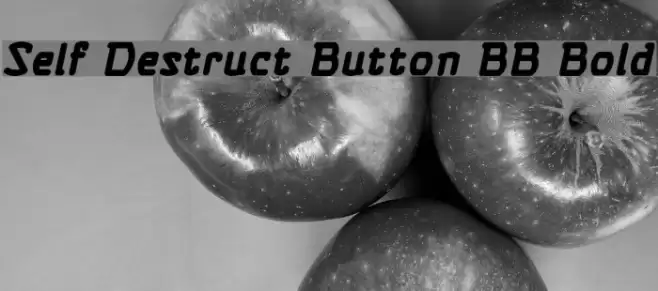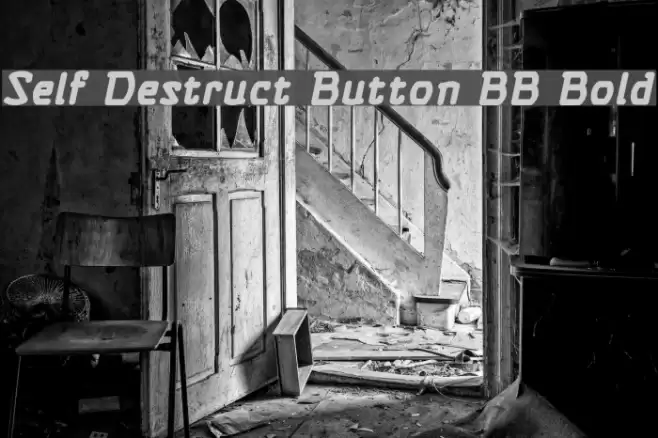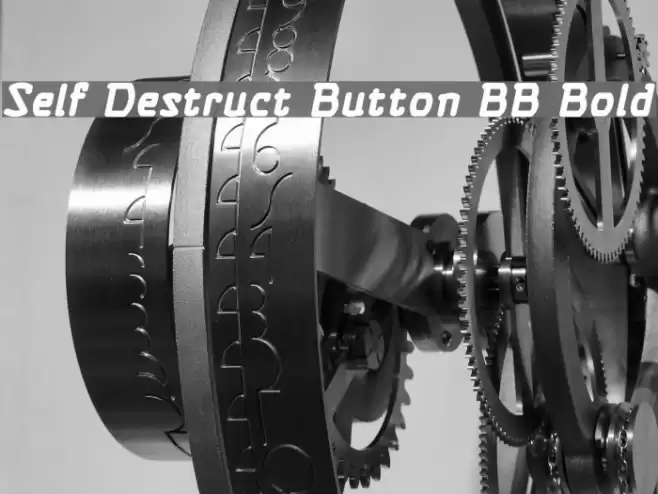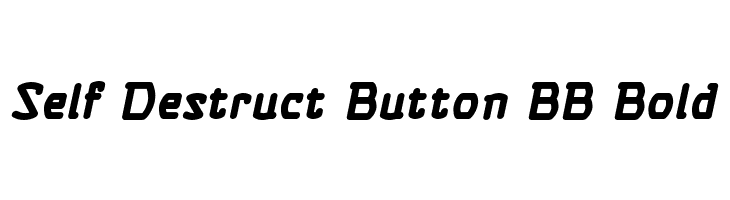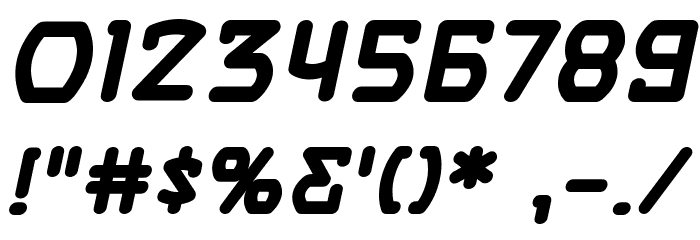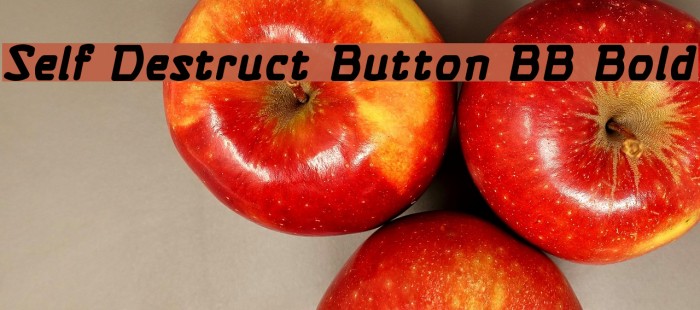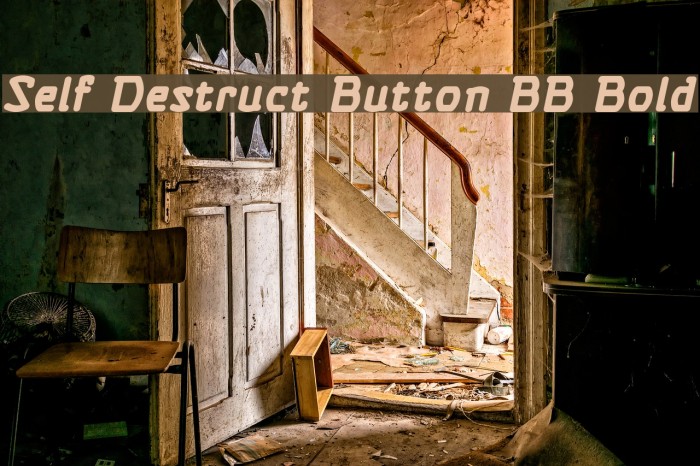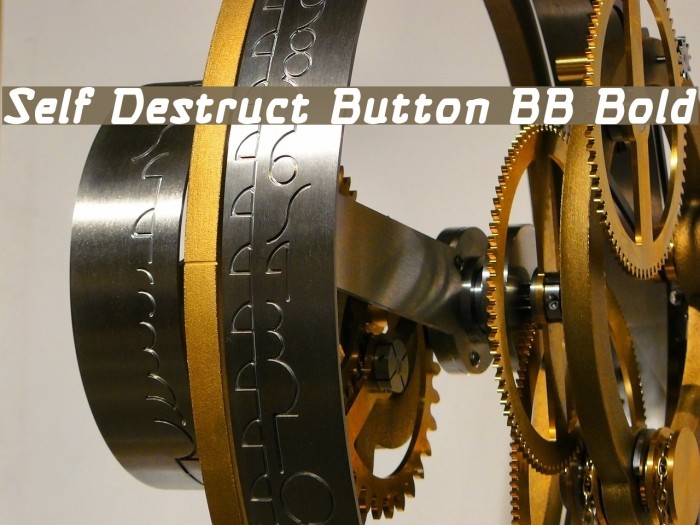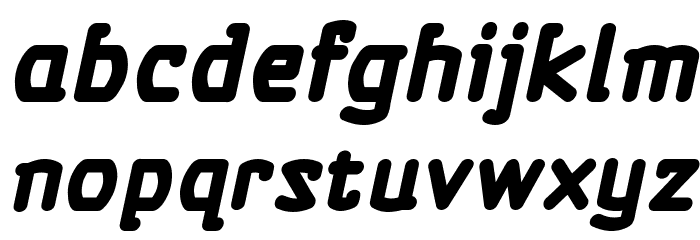
Self Destruct Button BB Bold Font
Self Destruct Button BB Bold Description
This font features a bold, rounded style with a slight slant, giving it a dynamic and energetic appearance. The characters are well-defined with consistent stroke thickness, creating a uniform look across both uppercase and lowercase letters. The numbers and special characters maintain the same boldness and rounded edges, ensuring readability and coherence. The font's style is reminiscent of retro or vintage designs, yet it maintains a modern touch with its clean lines and smooth curves. The overall impression is one of strength and playfulness, making it suitable for projects that require a bold statement.
A bold, rounded, and slightly slanted font with a dynamic and energetic style from Uncategorized fonts.
- Proposed Projects: Ideal for logos, posters, branding, and any design requiring a bold and playful touch.